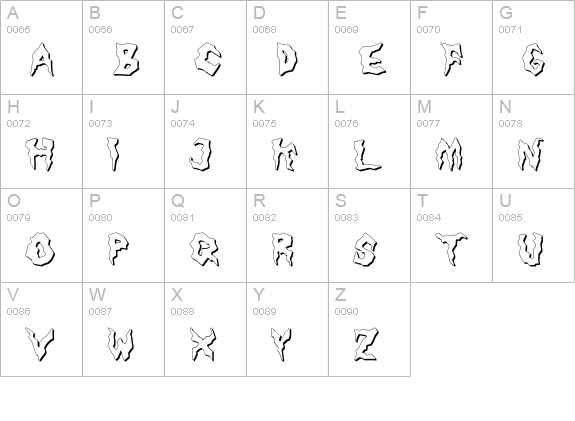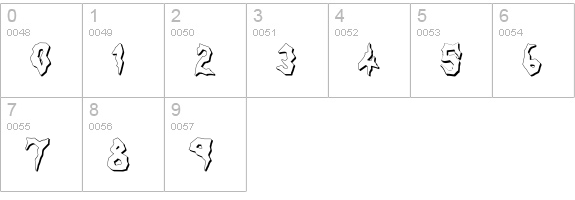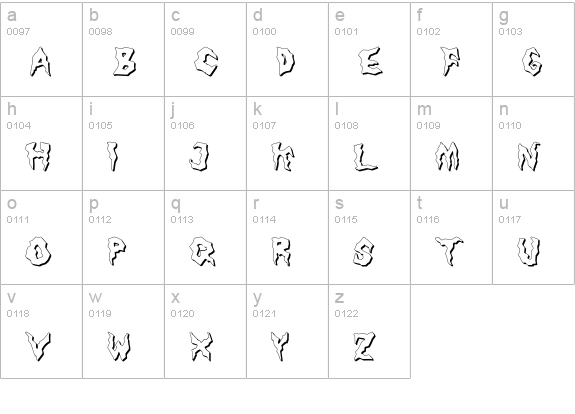
Nameless Harbor Font Details
Nameless Harbor is a beautifully crafted font that exudes an air of mystery and elegance. Its unique design features intricate details that make it stand out from the crowd. The font's flowing curves and sharp angles create a captivating visual appeal that is perfect for a wide range of design projects. What sets Nameless Harbor apart is not just its stunning aesthetics, but also the fact that it is available for free download at FontsMarket.com. This means that you can easily access this high-quality font without having to worry about any costs. Whether you are working on a creative project, designing a logo, or creating stunning graphics, Nameless Harbor is the perfect choice to add a touch of sophistication and style. Download Nameless Harbor today from FontsMarket.com and elevate your designs with this exceptional font that is sure to leave a lasting impression.